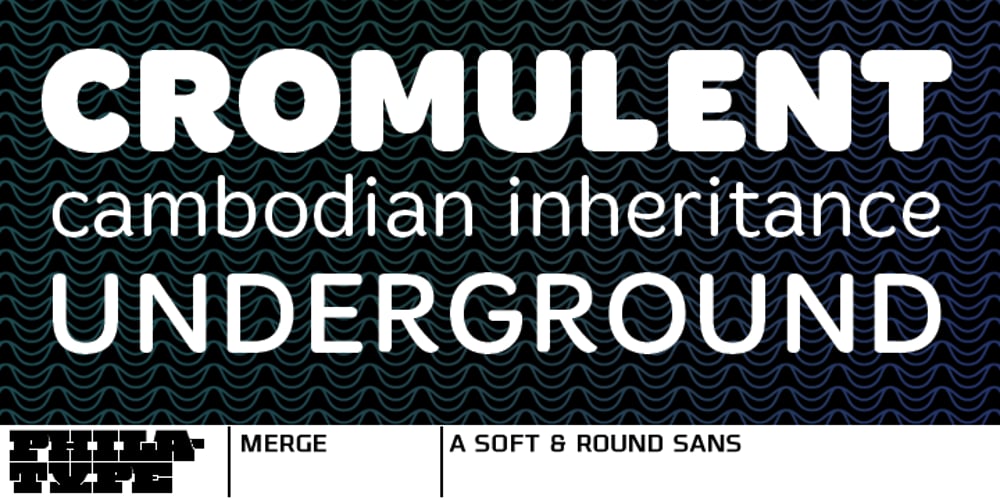
Merge Font Family was designed by Kosal Sen and published by Philatype. Merge contains 4 styles and family package options. Merge is a soft family of sans, available in 4 weights. Readable at small sizes, it sets open and wide. At display sizes, the softness makes for a friendlier, more casual alternative to other rounded sans.